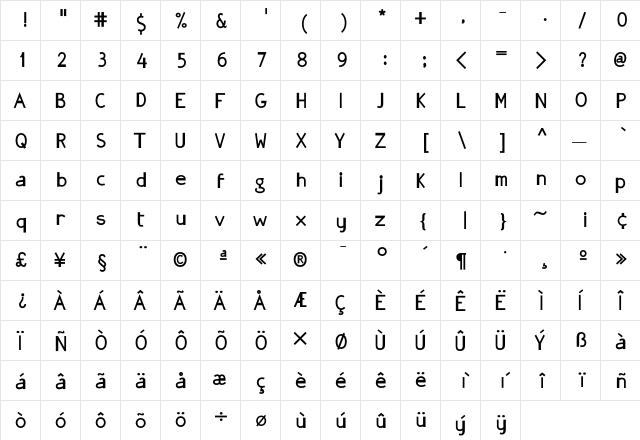
GonzaPlus Bold
Design Context for GonzaPlus Typeface
GonzaPlus is a composed and adaptable typeface that performs quietly and consistently across a wide range of design contexts. The heavy weight commands attention and anchors typographic hierarchies.